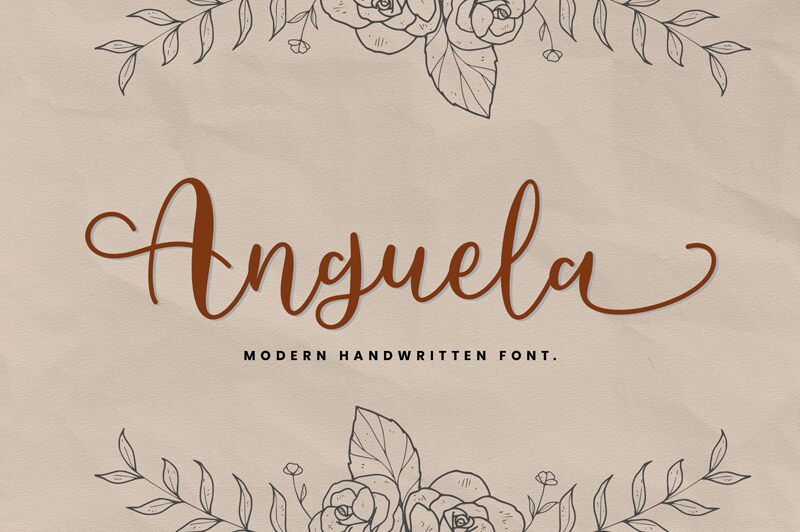
Anguela Script, designed by Faisal Tanjung, is a modern handwritten font that exudes elegance and sophistication while maintaining a playful charm. The semi-light weight allows for easy readability, making it perfect for digital and print projects alike. This script font is versatile enough to be used for wedding invitations, branding materials, product packaging, and even social media graphics. With its unique style and fluid strokes, Anguela Script adds a touch of personality to any project. Bring your designs to life with this beautiful typeface that captures the essence of contemporary calligraphy.